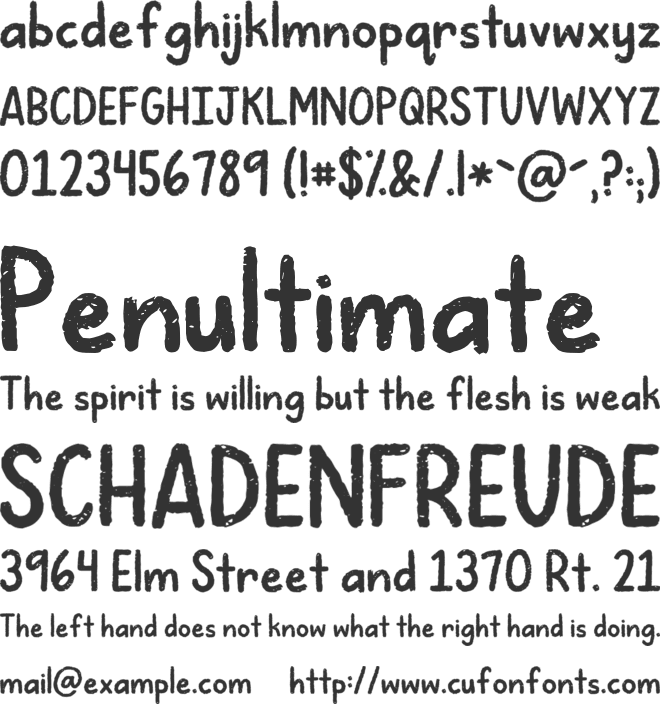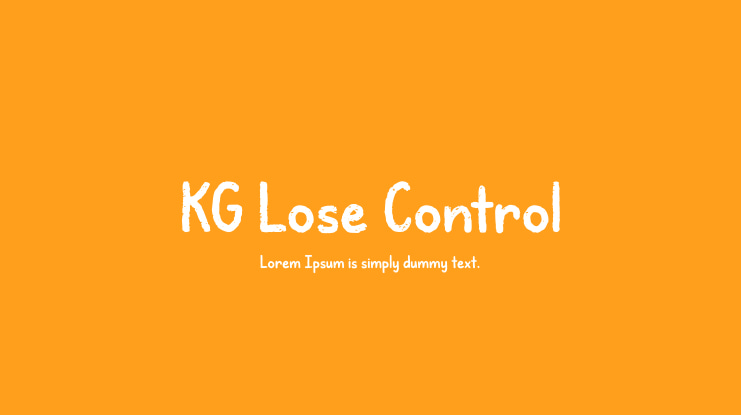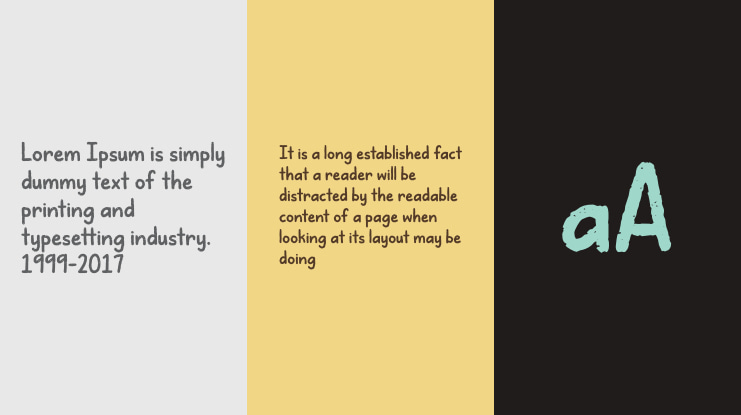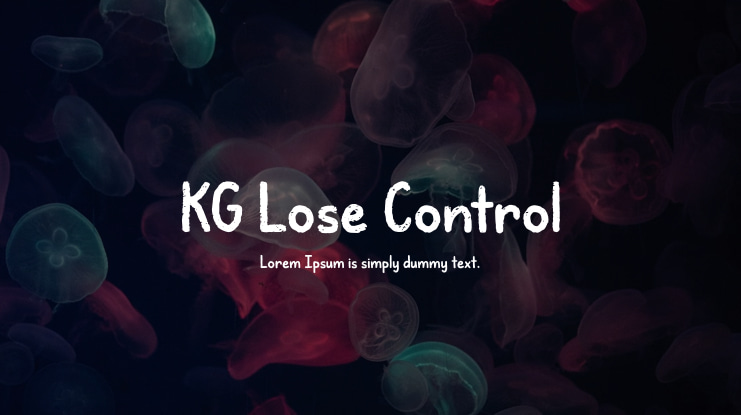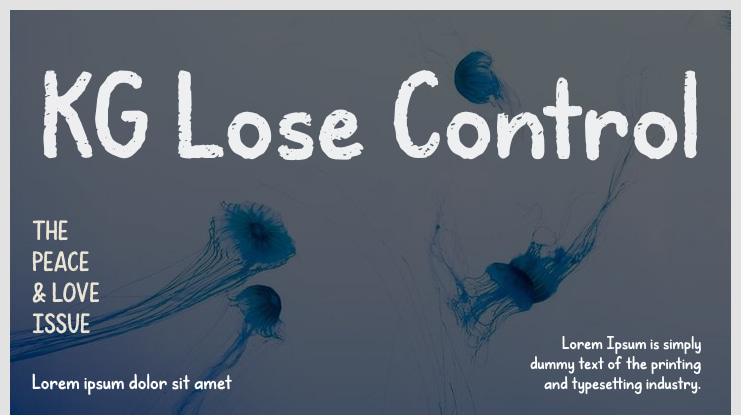
KG Lose Control Font
I created KG Lose Control- an educator-friendly handwritten crayon font- with my teacher customers in mind, but it’s a versatile font that can be used in several ways. I wanted to keep the letter shapes as close to standard as possible so it’s easy for kids to read. I tried to keep the jagged texture of a crayon on paper as I edited, so this has some intentional rough edges.
This would be perfect for chalkboard, crayon, and pencil lettering needs.